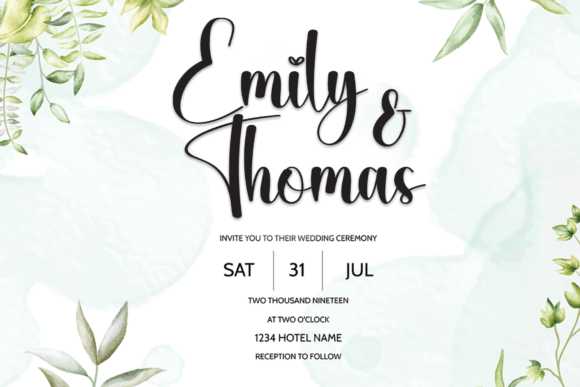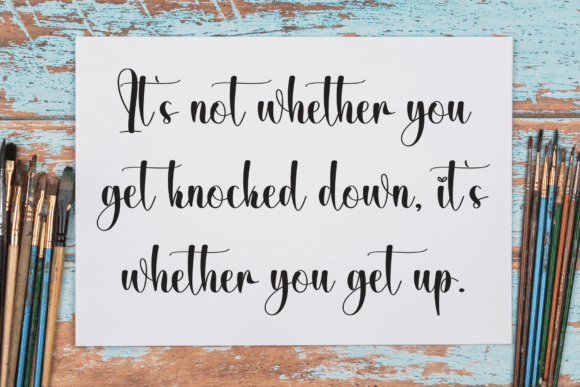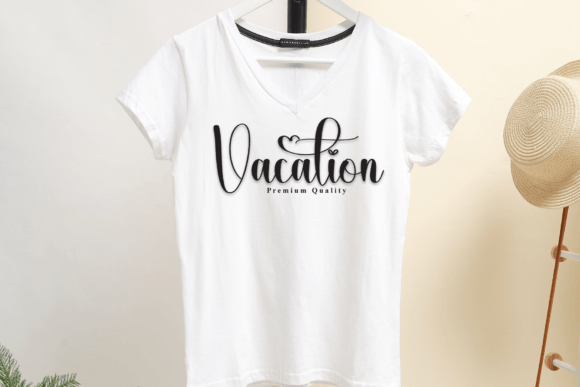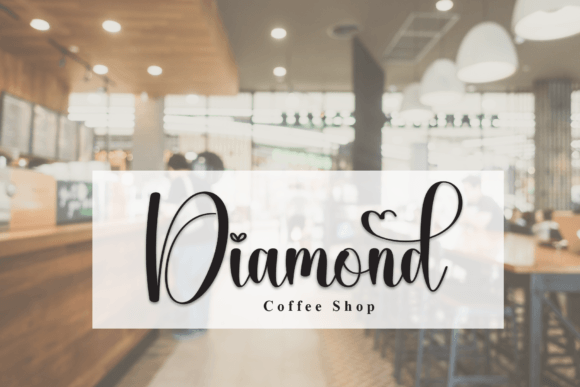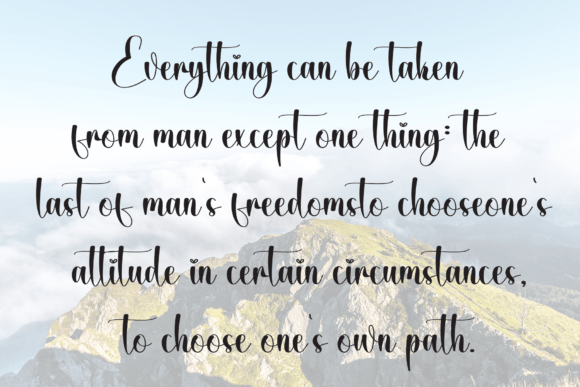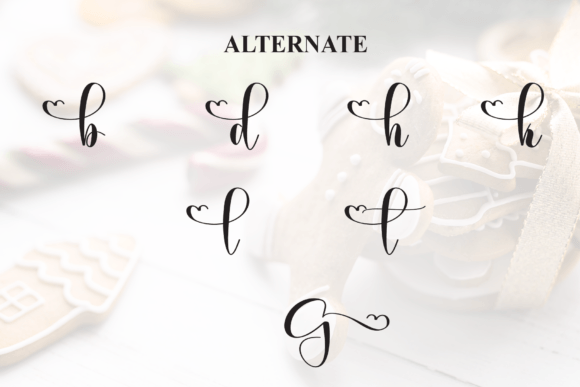
Ginger Bread Font: The Sweetest Addition to Your Design Collection
Are you a designer or crafter looking for a font that adds a touch of elegance and sophistication to your projects? Look no further than the Ginger Bread Font! This stylish and incredibly elegant script font is perfect for a variety of design applications, from wedding invitations and thank you cards to quotes, greeting cards, logos, and business cards.
The Characteristics of Ginger Bread Font
Ginger Bread Font is a beautiful, handwritten script font that exudes a sense of luxury and refinement. Its elegant strokes and flourishes make it perfect for designs that require a touch of sophistication. The font is highly legible, making it suitable for both digital and print applications.
Why Designers and Crafters Love Ginger Bread Font
So, what makes Ginger Bread Font so popular among designers and crafters? Here are just a few reasons:
- Elegance and Sophistication: Ginger Bread Font adds a touch of elegance and sophistication to any design, making it perfect for high-end clients or special occasions.
- Versatility: This font is incredibly versatile and can be used for a wide range of design applications, from wedding invitations to business cards.
- Easy to Read: Despite its elegant appearance, Ginger Bread Font is highly legible, making it suitable for both digital and print applications.
- Unique and Eye-Catching: Ginger Bread Font is a unique and eye-catching font that will make your designs stand out from the crowd.
Using Ginger Bread Font in Your Designs
Ginger Bread Font is perfect for a variety of design applications, including:
- Wedding Invitations: Add a touch of elegance and sophistication to your wedding invitations with Ginger Bread Font.
- Thank You Cards: Make your thank you cards more special with this beautiful script font.
- Quotes and Greeting Cards: Use Ginger Bread Font to add a touch of elegance to your quotes and greeting cards.
- Logos and Business Cards: This font is perfect for creating professional-looking logos and business cards.
Tips for Getting the Most Out of Ginger Bread Font
Here are a few tips for getting the most out of Ginger Bread Font:
- Use it Sparingly: While Ginger Bread Font is beautiful, it can be overwhelming if used too much. Use it sparingly to add a touch of elegance to your designs.
- Pair it with Other Fonts: Experiment with pairing Ginger Bread Font with other fonts to create a unique and eye-catching design.
In conclusion, Ginger Bread Font is a stylish and incredibly elegant script font that is perfect for designers and crafters looking to add a touch of sophistication to their projects. With its elegant strokes, flourishes, and high legibility, this font is suitable for a wide range of design applications. Whether you’re creating wedding invitations, thank you cards, quotes, greeting cards, logos, or business cards, Ginger Bread Font is sure to impress.
- What type of font is Ginger Bread Font?: Ginger Bread Font is a script font.